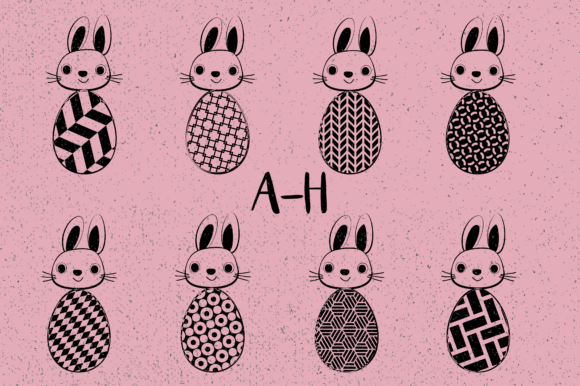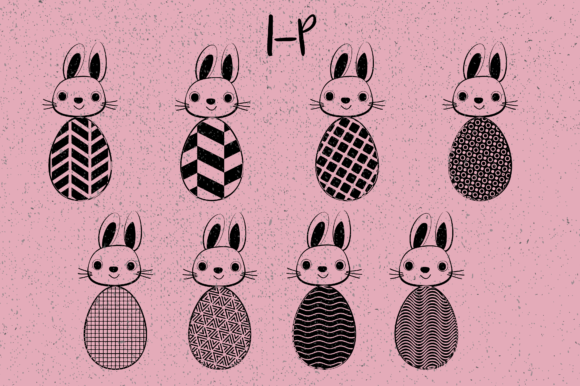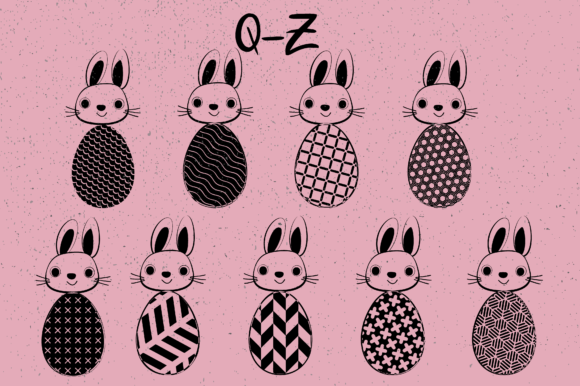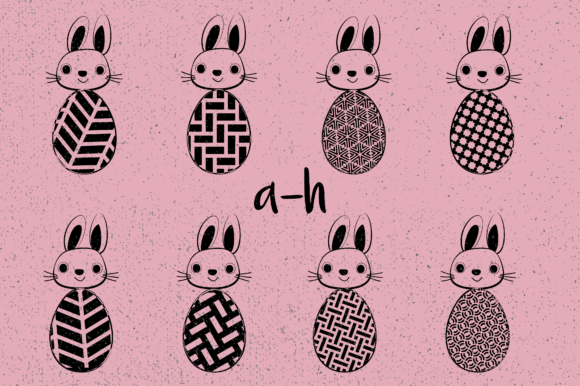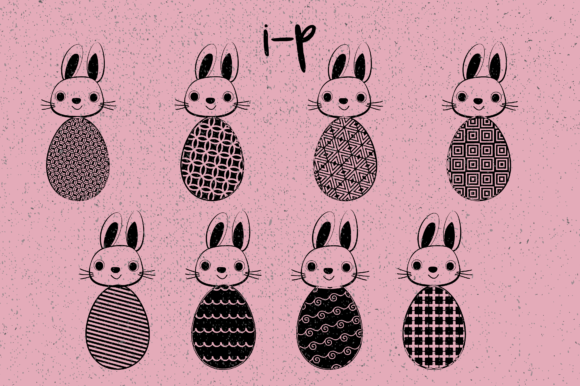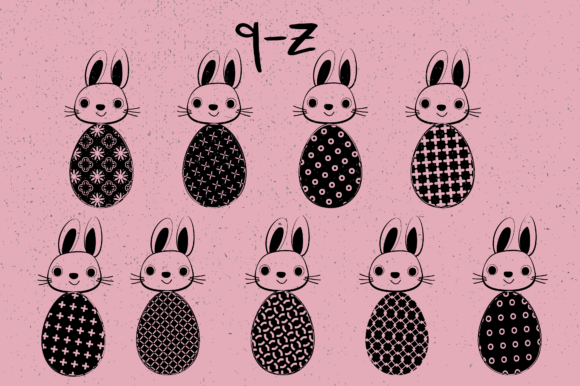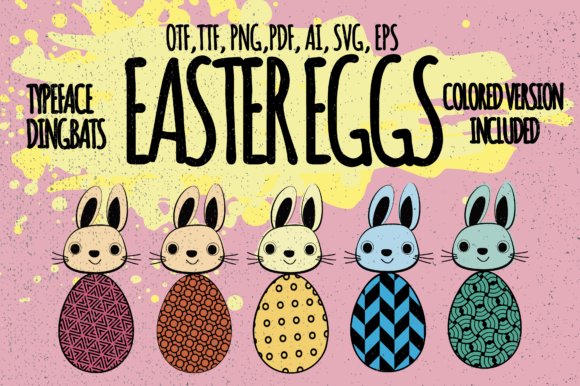
Easter Eggs Font: A Sweet and Delicate Addition to Your Design Library
Easter Eggs is a charming dingbats font that can add a touch of whimsy and delight to any design project. Its sweet and delicate appearance makes it an incredible asset to your font library, regardless of the topic or theme. In this article, we’ll explore the features and benefits of Easter Eggs Font, and how it can elevate your creations.
What is Easter Eggs Font?
Easter Eggs Font is a dingbats font, which means it’s a collection of symbols, icons, and illustrations designed to resemble Easter eggs. The font features intricate and detailed designs, each one showcasing a unique and colorful Easter egg. The eggs are adorned with patterns, stripes, and other decorative elements, making them perfect for adding a touch of springtime joy to your designs.
Key Features of Easter Eggs Font
- Sweet and delicate design: Easter Eggs Font features beautifully crafted Easter eggs with intricate details and patterns.
- Versatile: The font can be used for various design projects, including Easter-themed designs, spring-inspired creations, and even general decorative elements.
- Dingbats font: Easter Eggs Font is a dingbats font, making it easy to use and incorporate into your designs.
- Scalable: The font is designed to be scalable, ensuring it looks great in various sizes and resolutions.
Benefits of Using Easter Eggs Font
Easter Eggs Font offers several benefits to designers and crafters, including:
- Unique and creative designs: The font provides a unique and creative way to add Easter-themed elements to your designs.
- Easily customizable: You can easily customize the font to fit your design style, by adjusting the size, color, and other attributes.
- Time-saving: With Easter Eggs Font, you can quickly and easily add Easter-themed elements to your designs, saving you time and effort.
- Cost-effective: The font is a cost-effective solution for adding Easter-themed designs to your projects, eliminating the need to create custom illustrations.
How to Use Easter Eggs Font
Using Easter Eggs Font is easy and straightforward. Here are some tips to get you started:
- Choose your design project: Select a design project that you’d like to add Easter-themed elements to, such as an Easter card, invitation, or social media post.
- Select the font: Choose Easter Eggs Font from your font library and select the size and style that suits your design.
- Customize the font: Adjust the font color, size, and other attributes to fit your design style.
- Add Easter eggs: Use the font to add Easter eggs to your design, experimenting with different arrangements and compositions.
Design Ideas Using Easter Eggs Font
Easter Eggs Font can be used in a variety of design projects, including:
- Easter cards and invitations: Add a touch of whimsy and delight to your Easter cards and invitations.
- Spring-themed designs: Use the font to create spring-inspired designs, such as social media posts, blog headers, and website graphics.
- Crafting projects: Incorporate Easter Eggs Font into your crafting projects, such as scrapbooking, paper crafting, and DIY decorations.
- Digital products: Use the font to create digital products, such as printable art, planners, and organizers.
Easter Eggs Font is a sweet and delicate dingbats font that can add a touch of Easter charm to any design project. Its versatile design, scalability, and customizability make it an incredible asset to your font library. With Easter Eggs Font, you can create unique and creative designs that showcase your style and creativity. Whether you’re a designer, crafter, or DIY enthusiast, Easter Eggs Font is a great addition to your design toolkit.